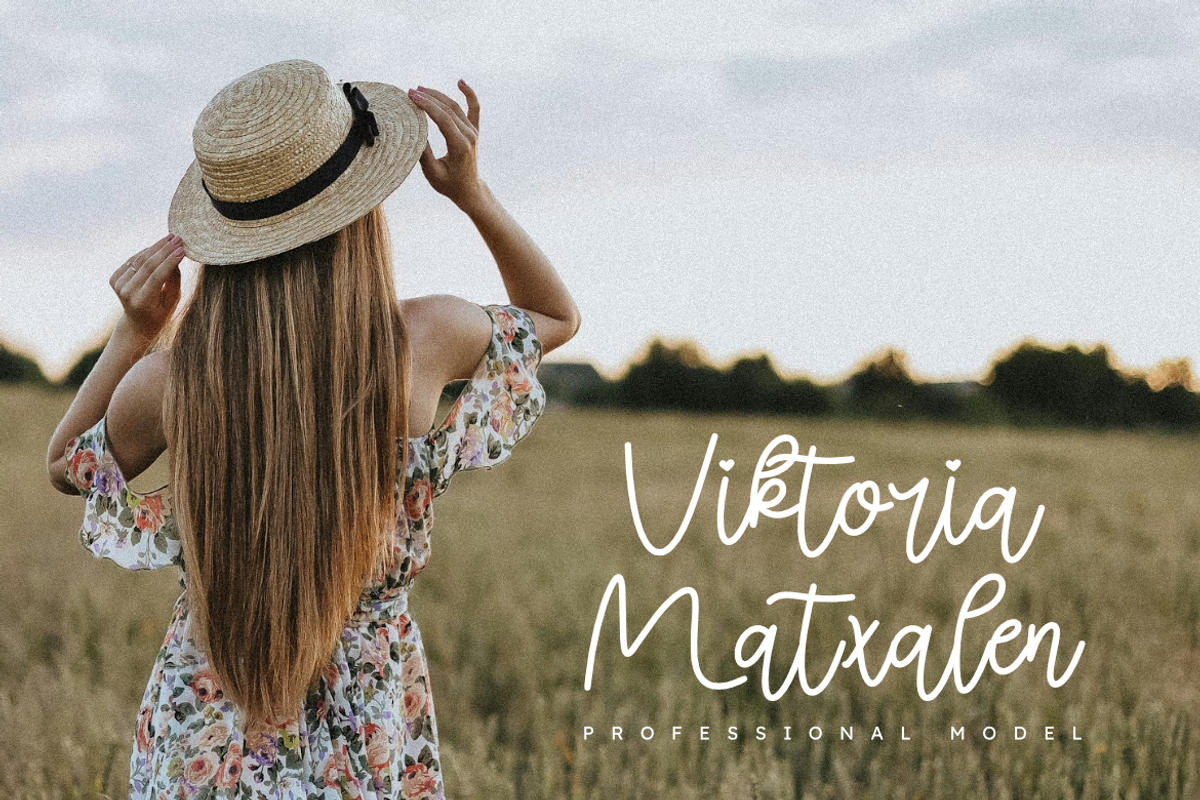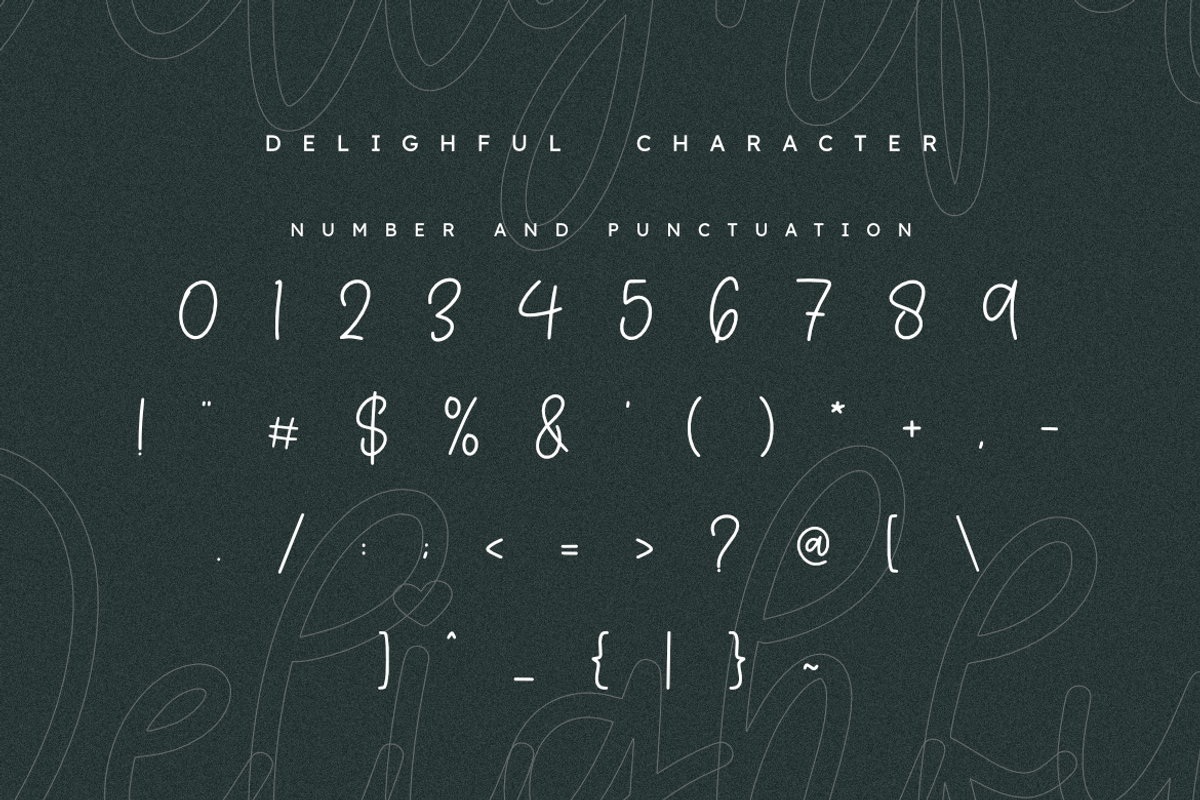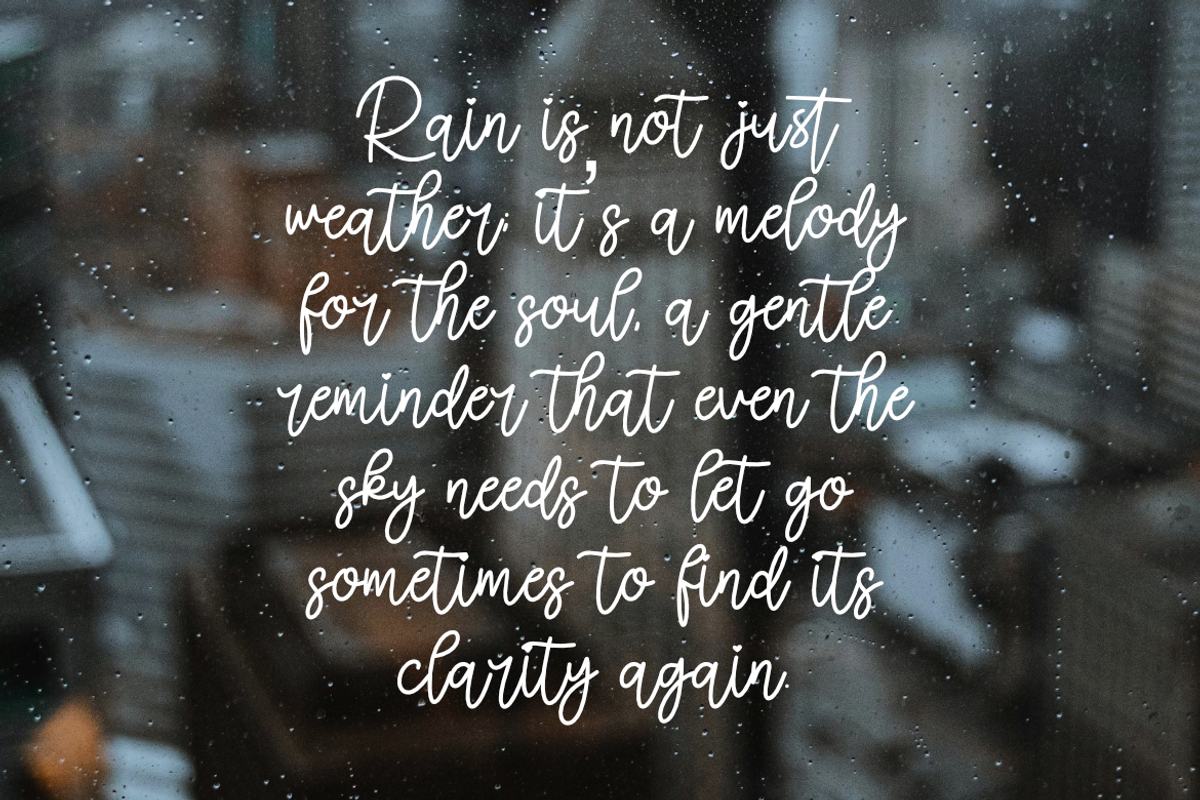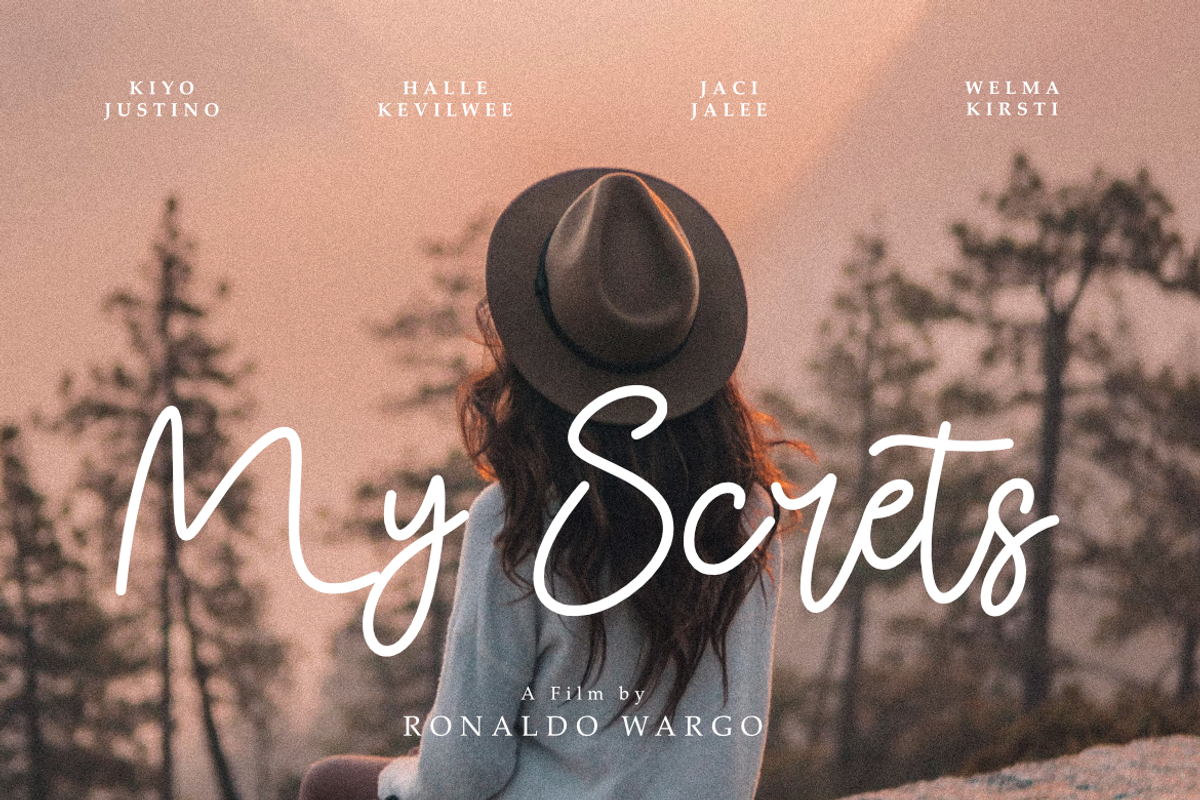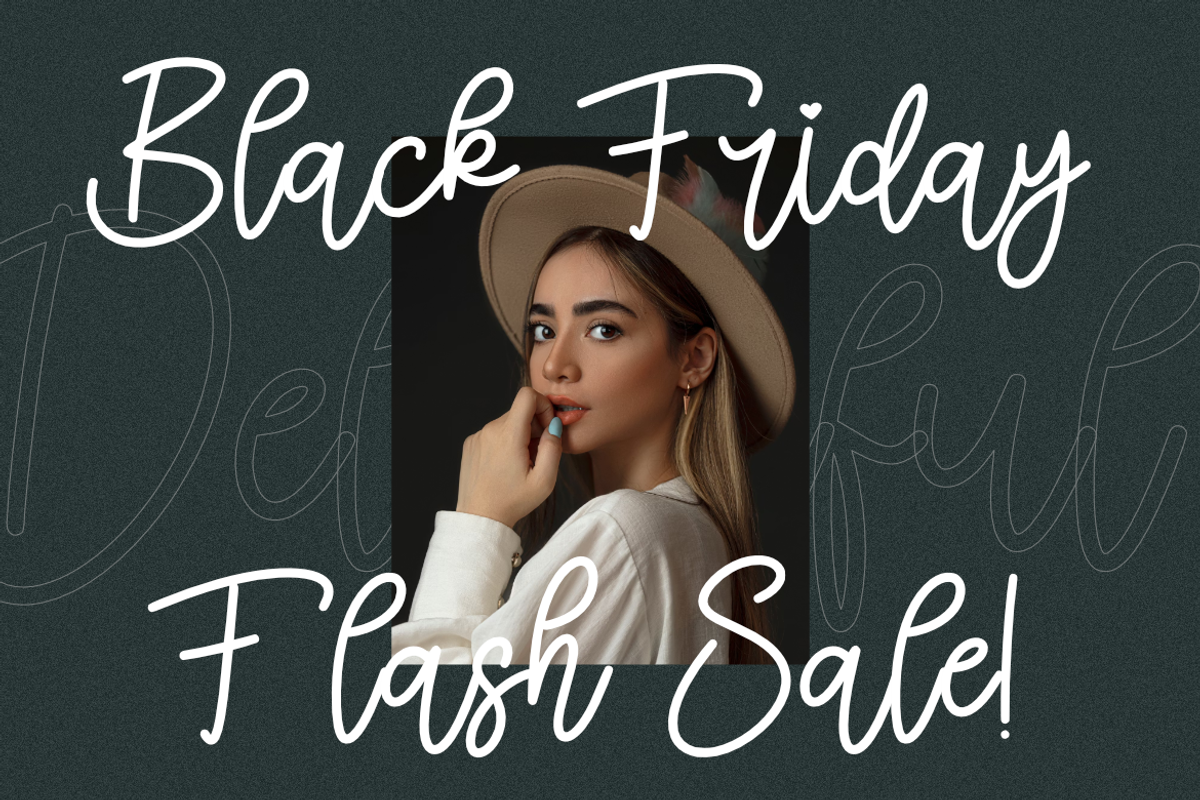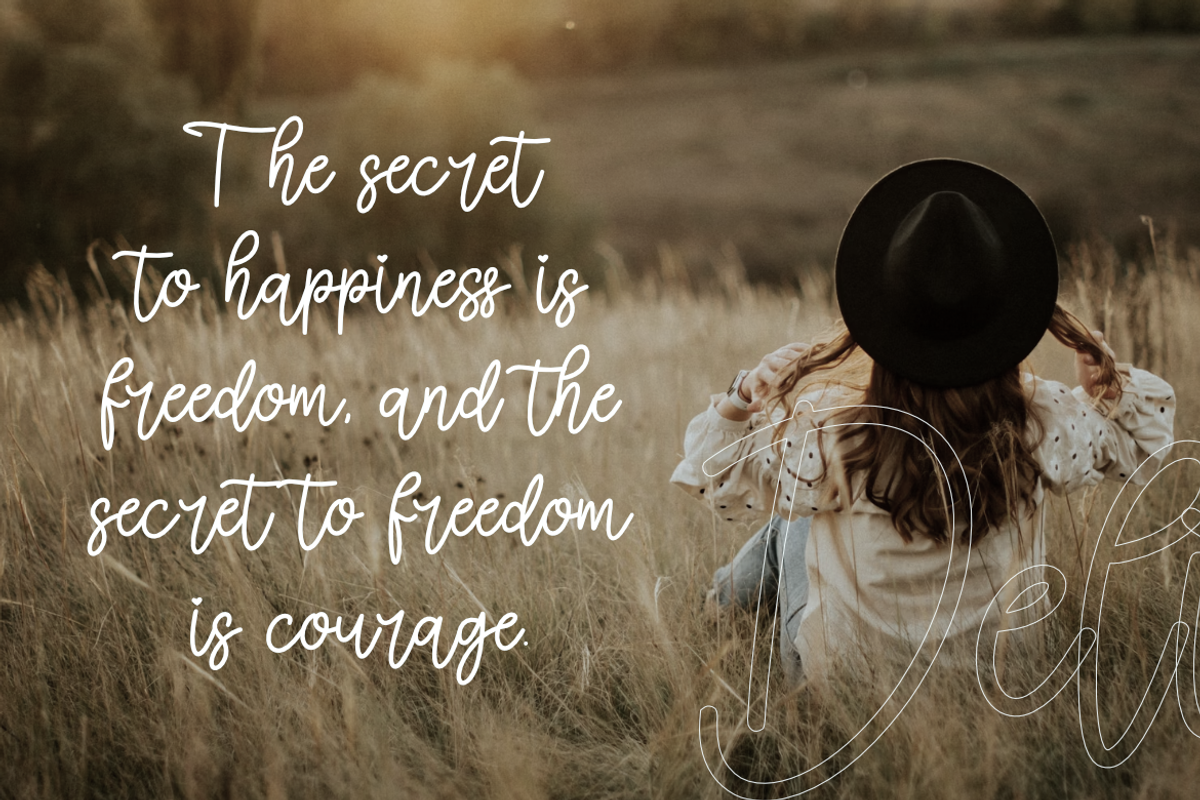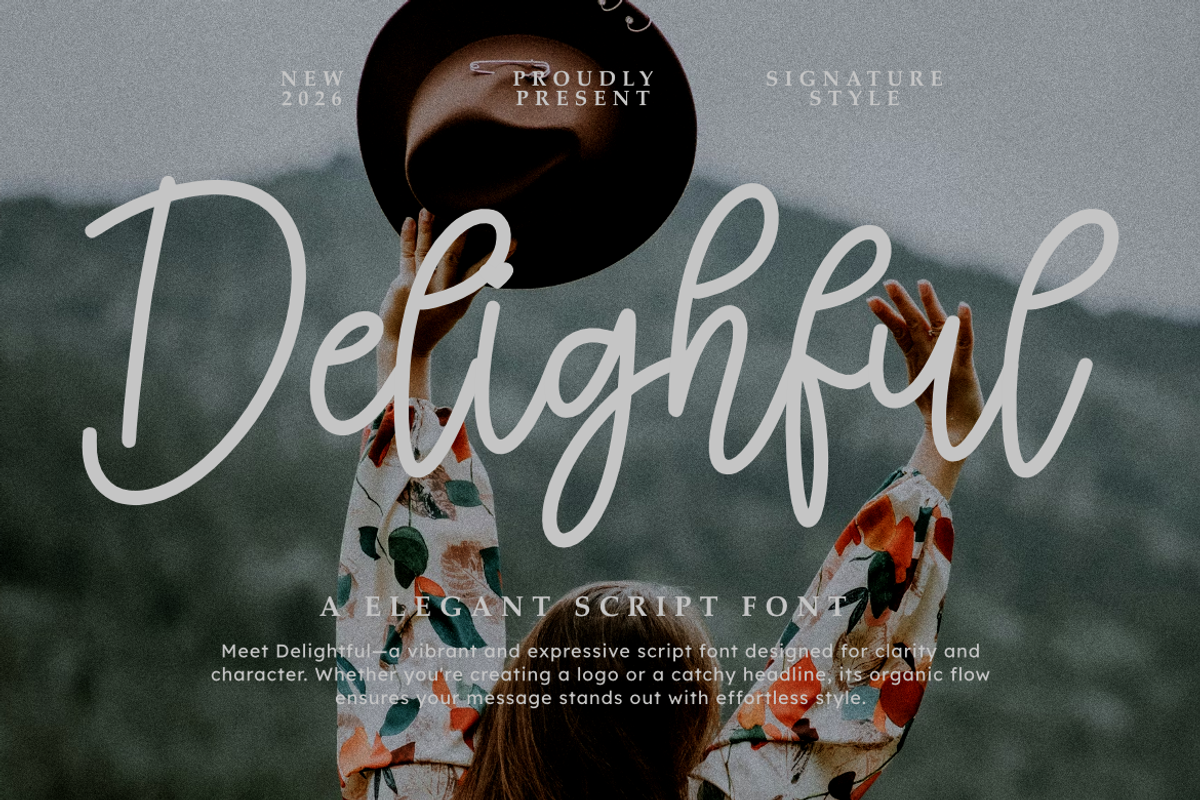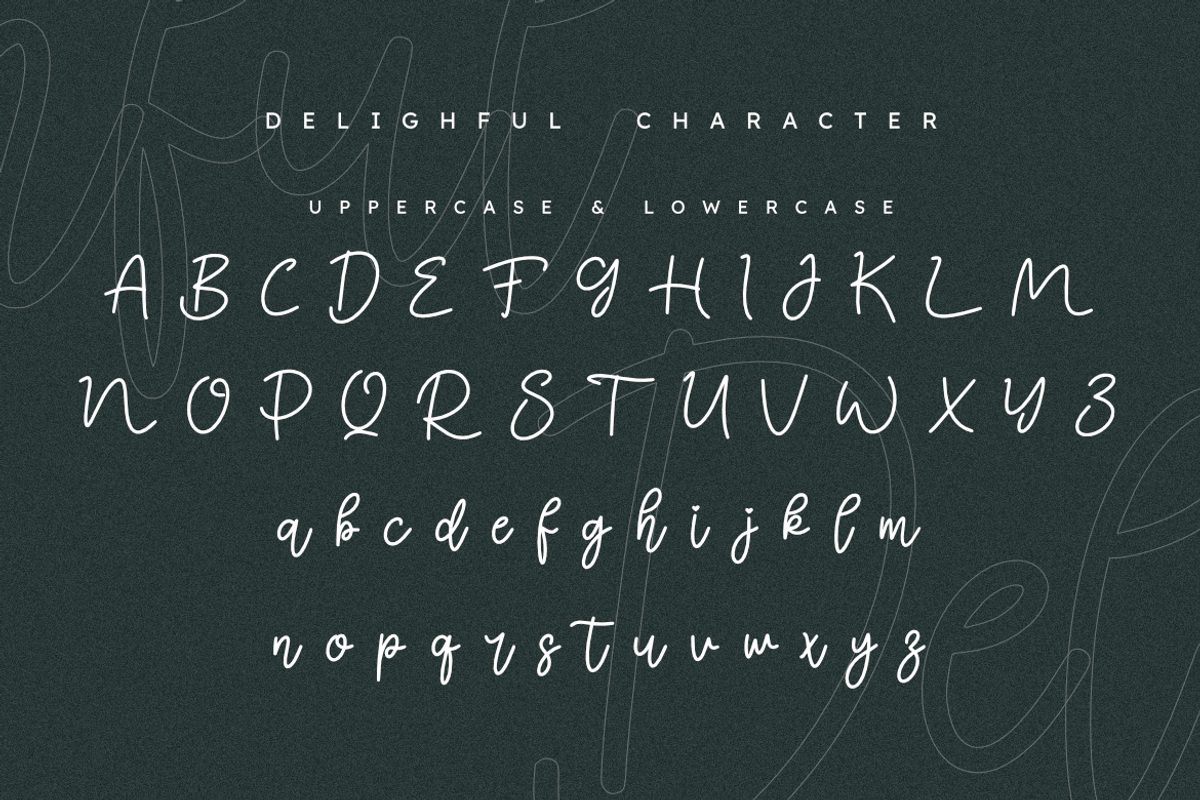
Delighful – Elegant Handwritten
Delighful is an elegant handwritten script font designed to bring a natural, expressive, and stylish feel to your designs. With smooth strokes and a clean handwritten look, this font is perfect for creatives who want a modern yet personal touch.
This script font works great for branding projects, logos, social media posts, invitations, packaging, quotes, and editorial layouts. Its balanced letterforms make it easy to read while still maintaining a graceful handwritten character.
Delighful is suitable for both digital and print use, and it pairs beautifully with serif or sans-serif fonts.
- Elegant handwritten script style
- Smooth and natural letter flow
- Easy to read and versatile